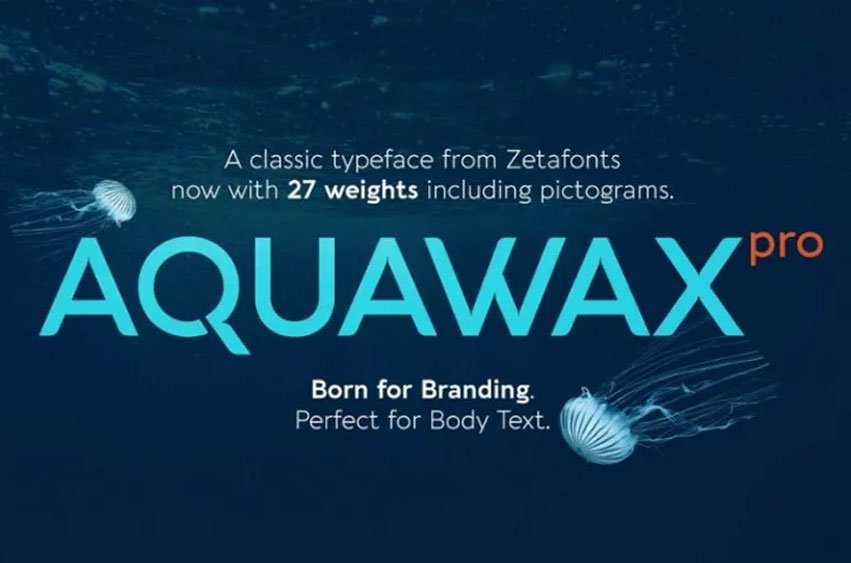
Aquawax Pro Font family that was created and shared by Francesco Canovaro. Aquawax was designed as a custom brand typeface in 2008 and it became one of the most successful typefaces of Zetafonts – for example Warner Bros chose it, among other fonts, to design the logo for Aquaman movie.
Its logo design roots are obviously seen in the details of the design, from the tail that looks like a blade and belongs to Q and fin-like right leg of K, as well as intentionally reversed uppercase W together with rounded edges which soften up sharp modernist lettershapes.